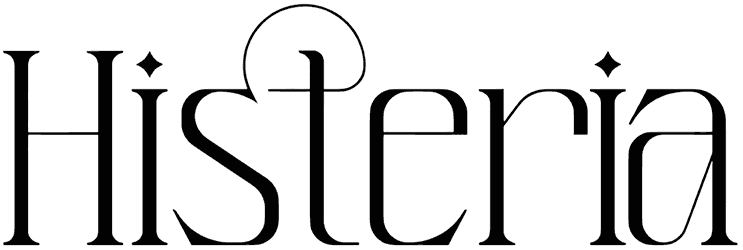
Austragen Font
If you’re working on a project with a reputable company and want to delve into the beautiful, bold world of fonts, Austragen is the way to go. With this serif font, you’ll feel like an expert designer again.
Although it is missing several numerical characters, Austragen still has many important uses, such as books, artwork, signs, apps, and titles. Our font collection, which already has hundreds of fonts, is always growing and has everything from cute to weird fonts.
Font By Almarkhatype Studio
Designed by: Almarkhatype